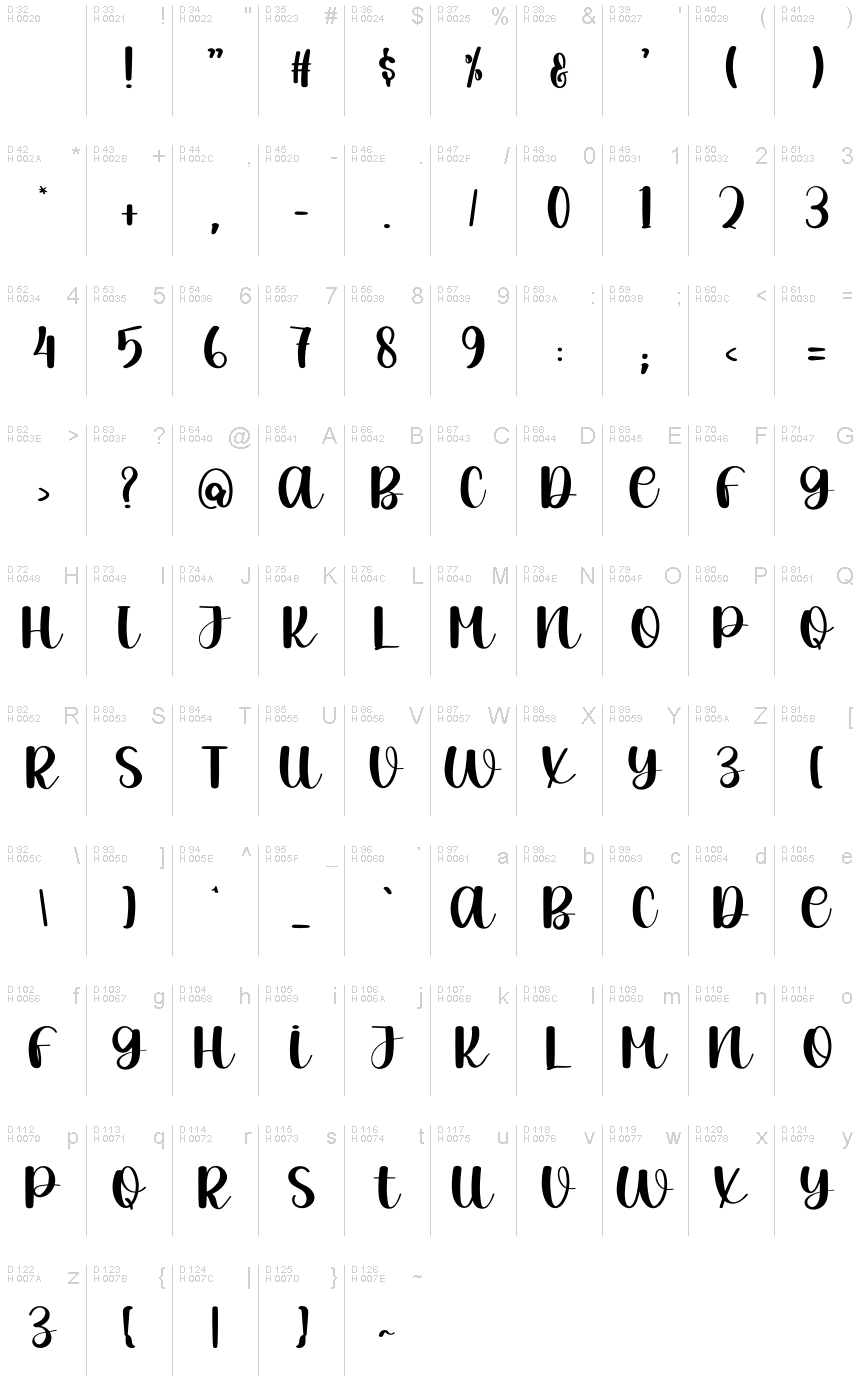
Street Foods
Street Foods, a bold brush font crafted by Inermedia Studio, exudes the raw energy of urban life and the unrefined charm of roadside eateries. With each stroke embodying the swift motions of a seasoned street vendor, its aesthetic is both lively and approachable. This typeface boasts an organic texture that speaks to hand-painted signs and chalkboard menus, making it perfect for projects that require a touch of authenticity.
Its robust weight ensures high visibility across various backgrounds, ideal for impactful headlines or eye-catching branding. Street Foods is not just a font; it's an embodiment of street culture's vibrancy and versatility. It stands as an excellent choice for designers looking to infuse their creations with the spirit of the sidewalks – from food truck wraps to festival posters – ensuring messages are served with character and flair.